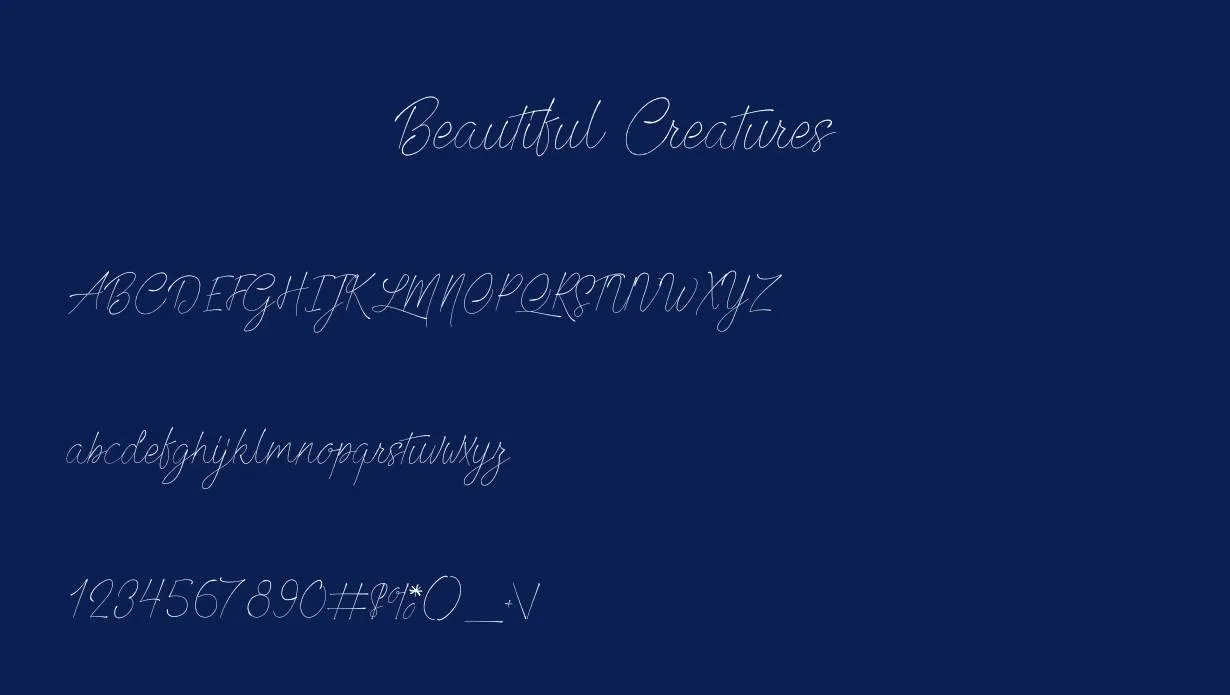
Beautiful Creatures Font Free Download
Beautiful Creatures is a stylish and artistic typeface typically showcasing elaborate and playful letters. It is frequently utilized in artistic endeavors like book covers, fantasy-themed graphics, and creative content.
The purpose of the font is to add a touch of magic and creativity to text, making it suitable for projects where a more artistic and unique appearance is desired.
| Designer | Paul Renner |